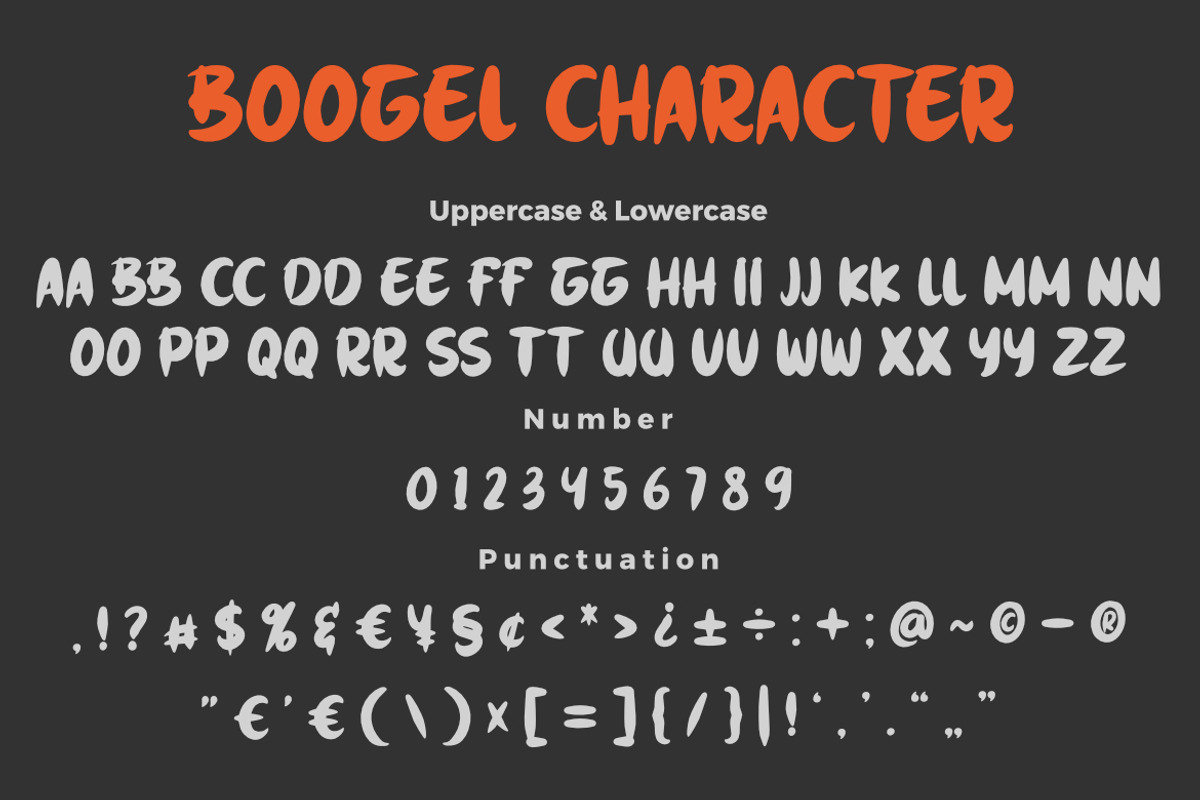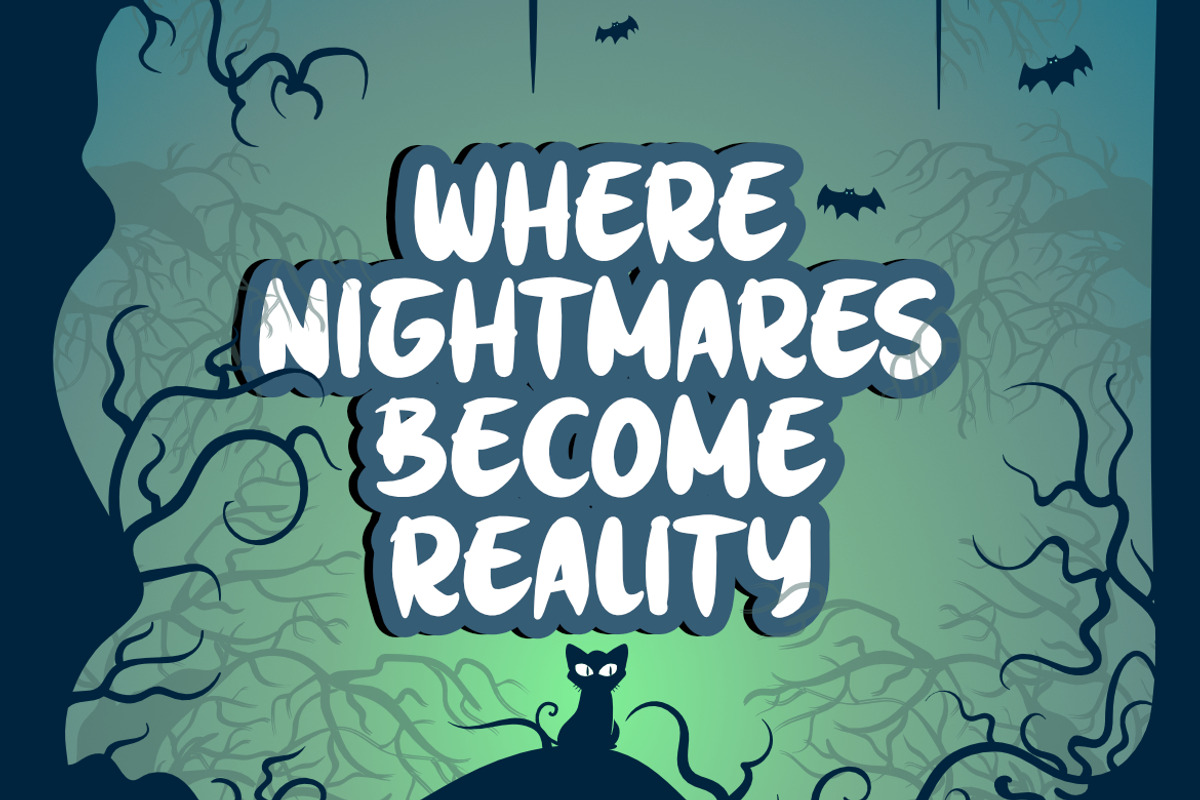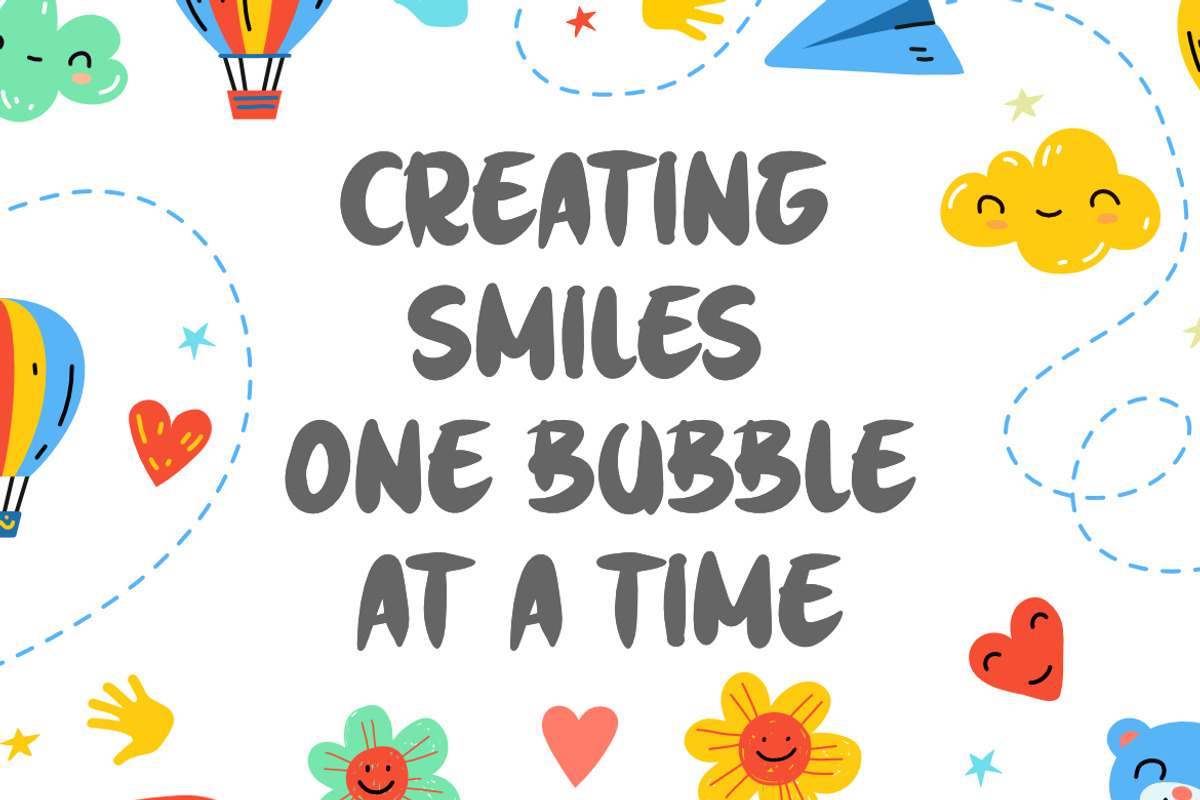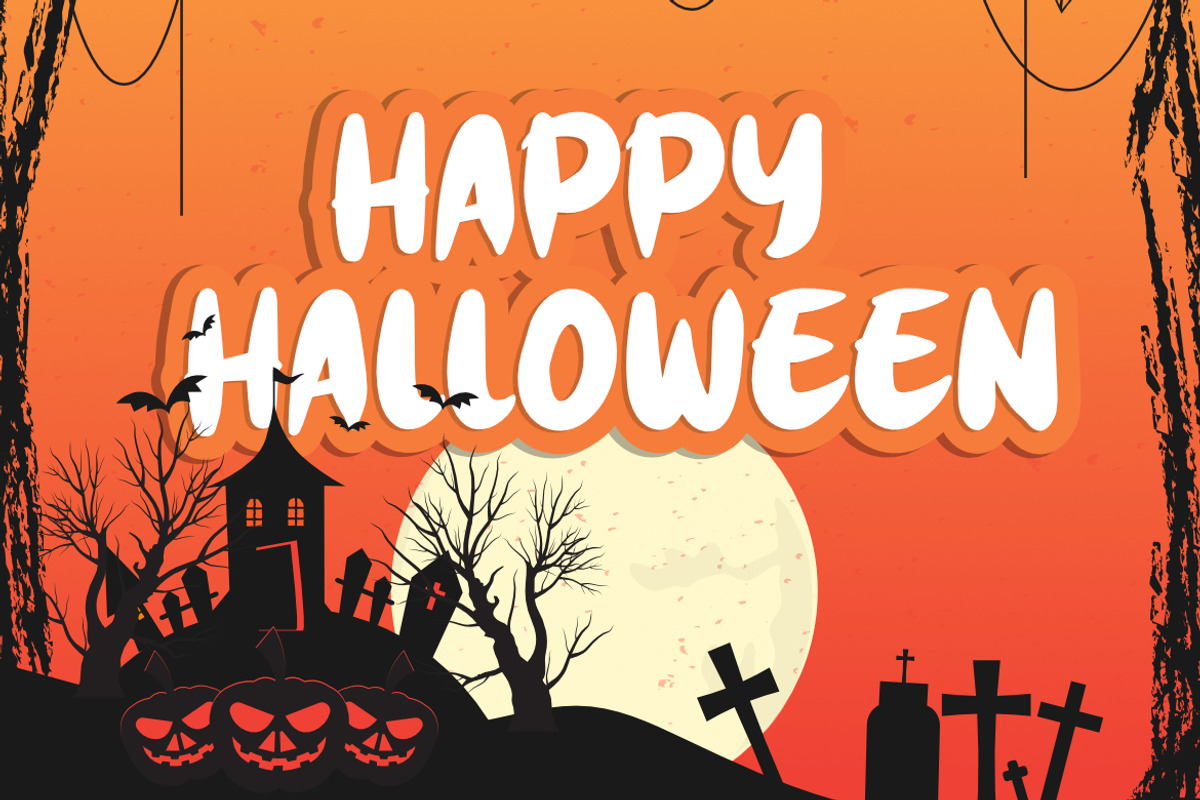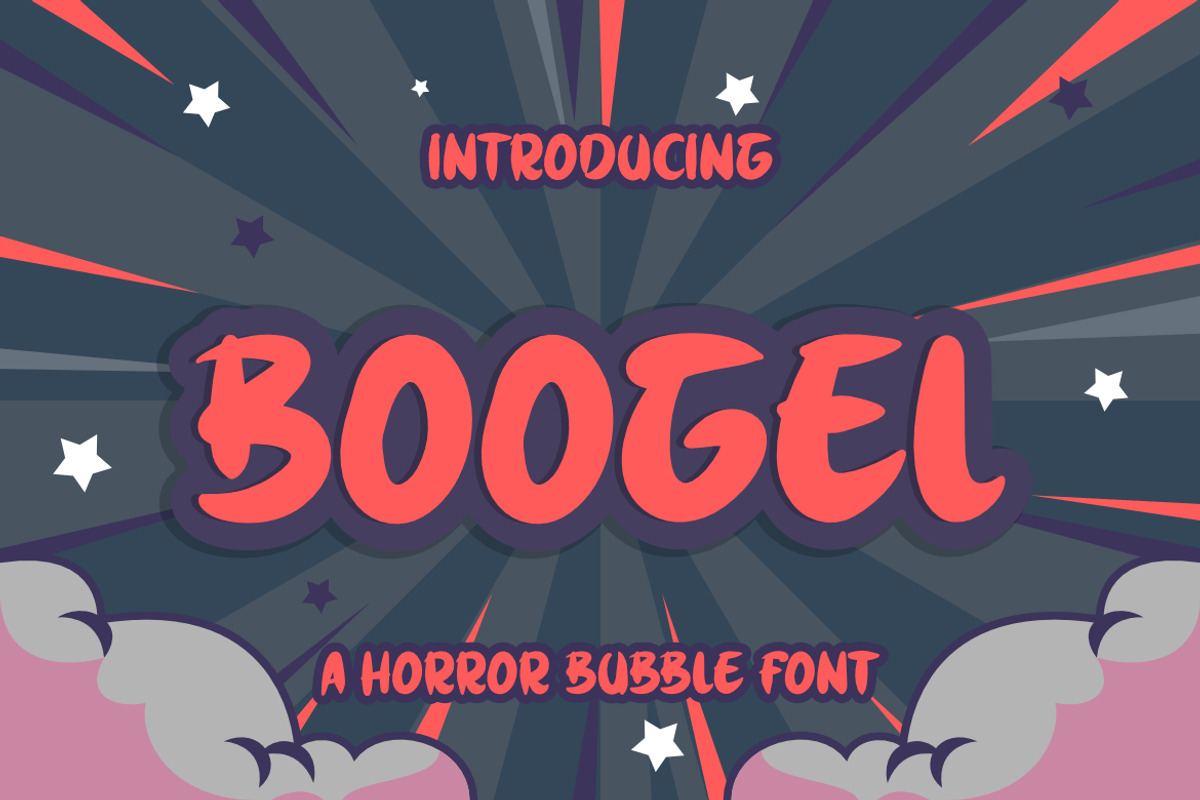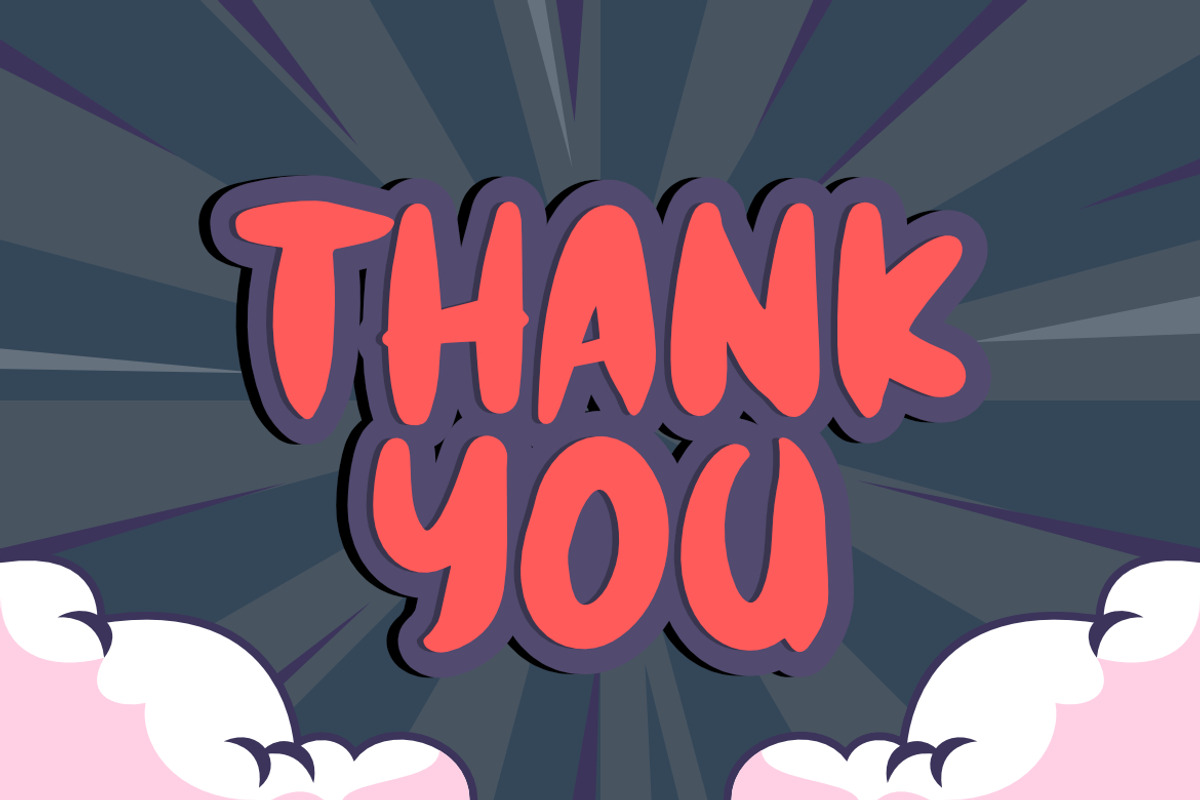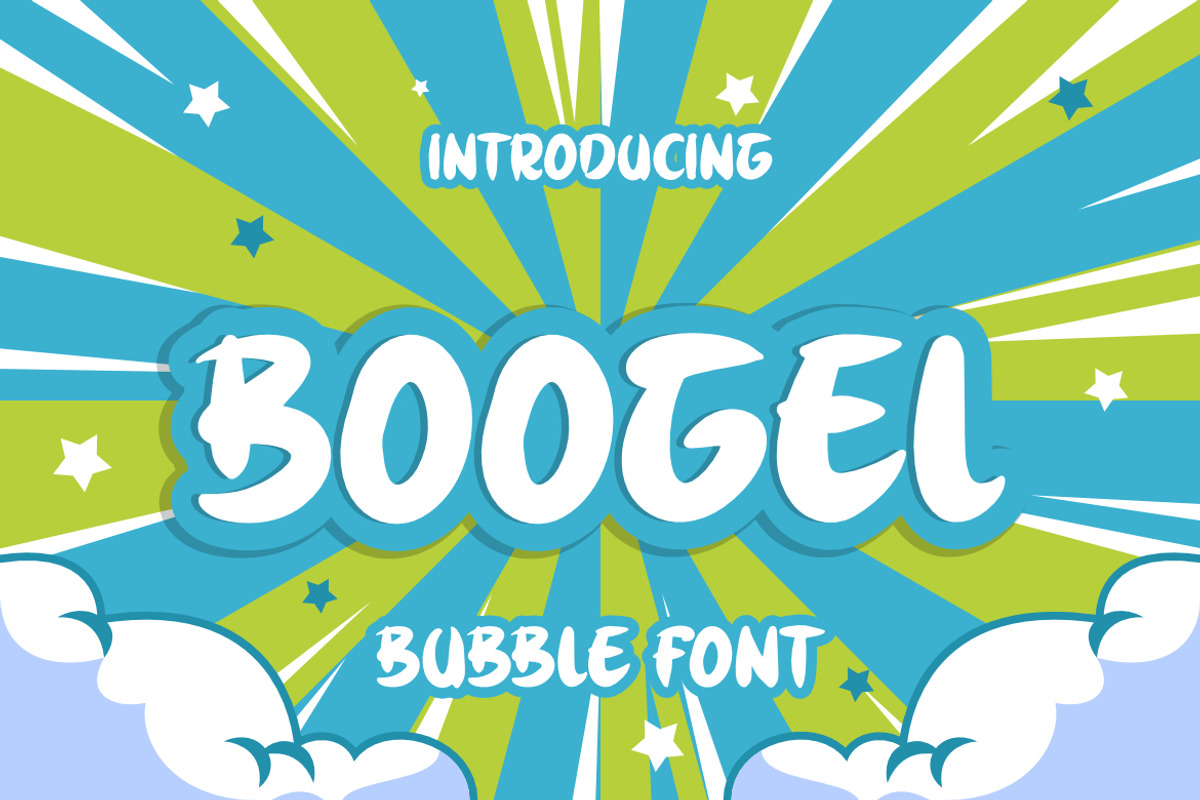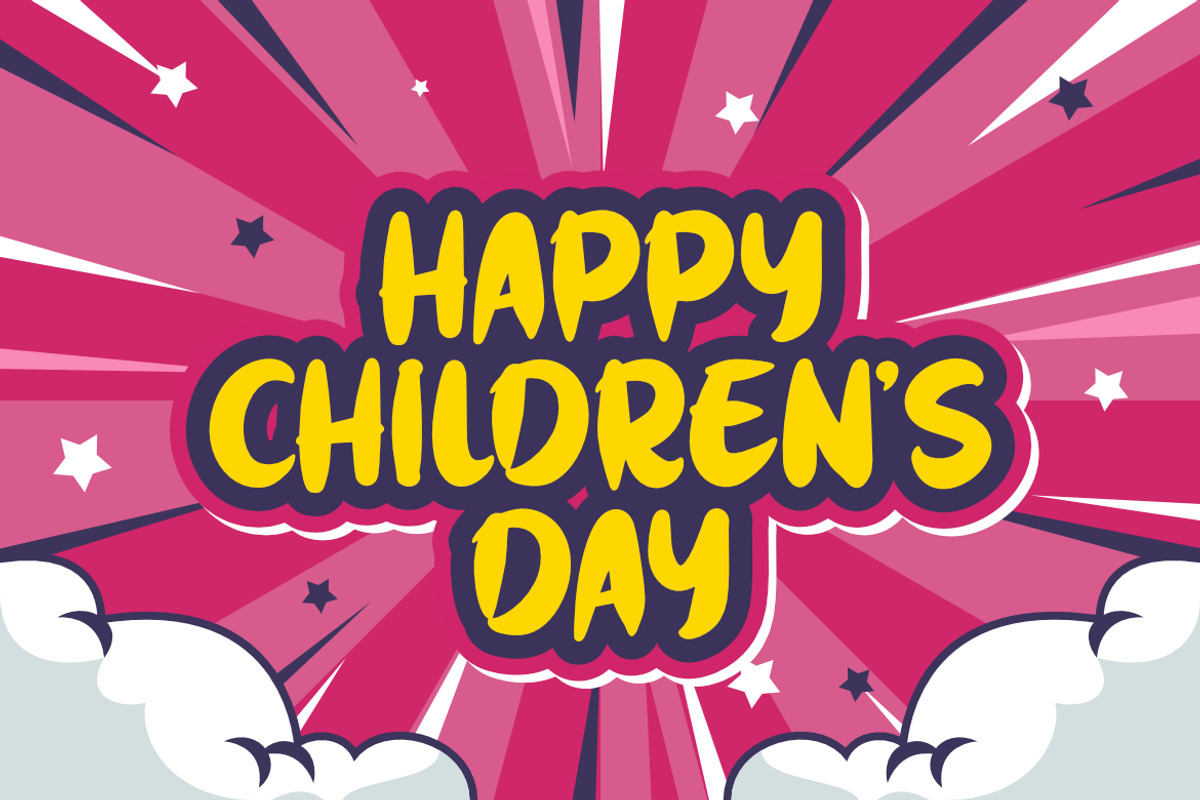
Boogel a Bubble Font
Boogel, This font is made with a high premium quality level which you can use as flyers, quotes, posters, banners, packaging, merchandise, logotypes and much more.